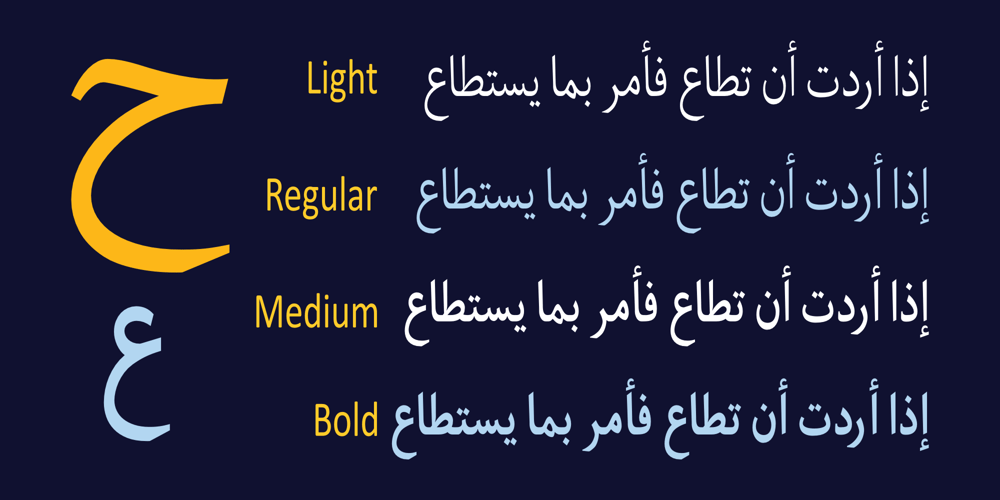
Hasan Enas Font Family was designed by Hasan Abu Afash and published by Hiba Studio. Hasan Enas contains 4 styles and family package options. Hasan Enas is an Arabic text typeface designed for readability and inspired by the clean, simple lines of Naskh calligraphy. It supports multiple languages, including Arabic, Persian, and Urdu. Its distinct design is easily recognizable and ensures stability, making it ideal for extended texts in various publications such as magazines, newspapers, books, and more.Hasan Enas is a reliable choice for professional and academic publications, offering a perfect blend of traditional calligraphy and modern typeface design.